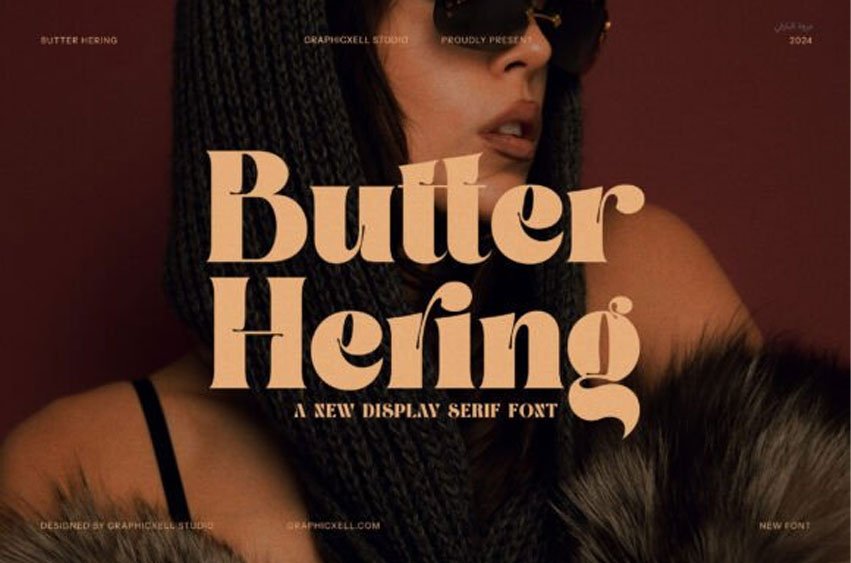
Butter Hering Font is a vintage-style serif font with a classic and elegant look. It features bold, curvy letters with small decorative details, giving it an old-fashioned yet stylish feel.
Perfect for retro designs, logos, or headings that need a touch of charm and sophistication.